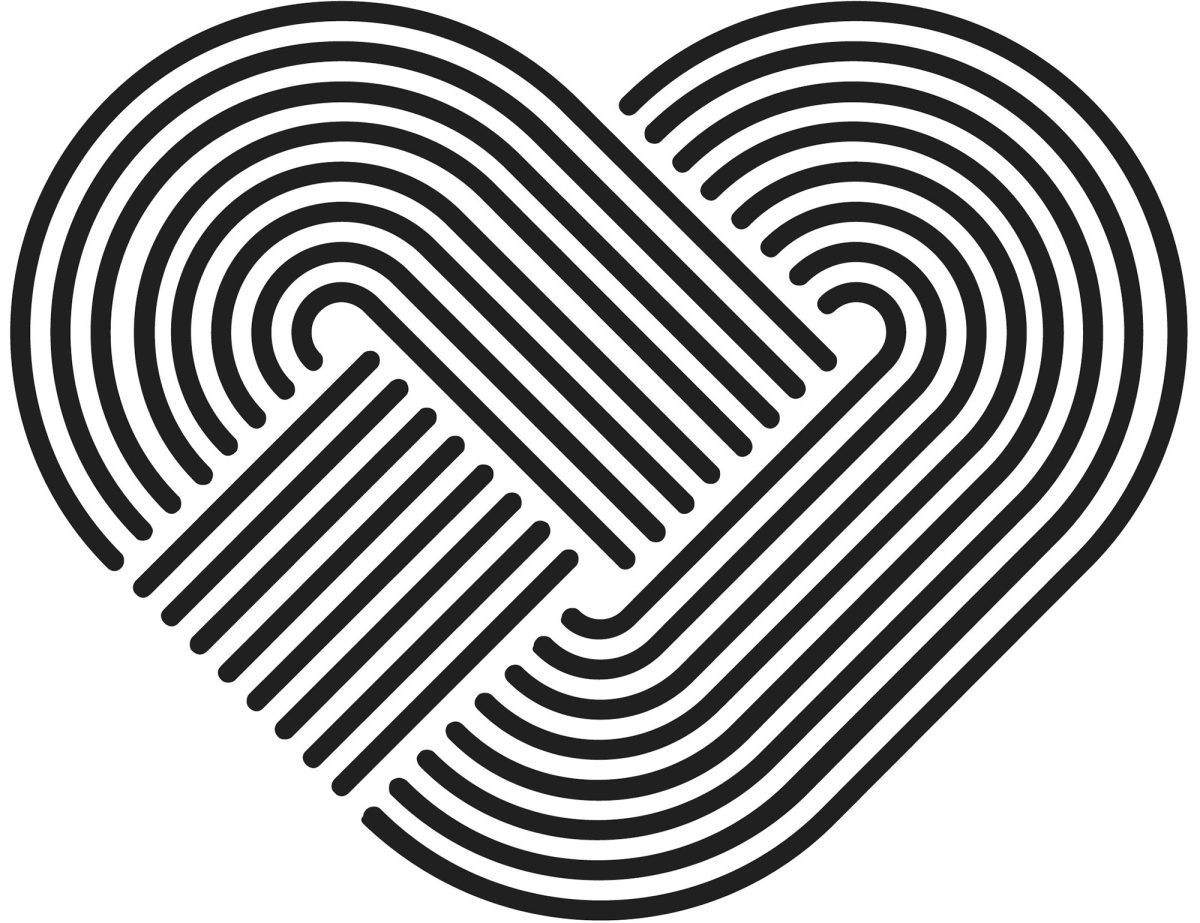
## Dry transfer lettering: Freedom and restriction Coming after movable type and photo-type, dry transfer lettering represents a halfway point within the historical evolution of typefaces, standing between photocomposition and digital typefaces, the final analog link connecting two apparently disparate universes since it allowed both professionals and enthusiasts, for the first time, to make use of these curious stencils that ended up having a huge impact in the ever changing industry of design and the graphic arts.
The leap from one format to another has occurred with questionable rigor and many of the families that existed as dry transfer alphabet sheets suffered various losses, especially if one takes into account what had been accomplished in more than 500 years of tradition. Others were unfortunate or fortunate enough to not be part of a broader group of typographical families that comprised the existing catalogues. However, a large number of type families designed for this short-lived means of reproduction were also developed, and they were based on types of letterforms that either continued to evolve towards the digital era or remained awaiting to be the last technology to resurface from transfer sheets to Bezier curves.
At the time the format freed typefaces from some of the restrictions that limited them and this led to unexpected uses of typographical form and space, which was manifested in the use they were given while their surge lasted. Even when formally a mechanism existed that allowed a correct spacing by means of an individual letter registry system named Spacematic, additionally, and made possible via a thorough study of the alphabetic usage frequency, an optimum use of the characters of the alphabet, numbers and punctuation was guaranteed with minimum waste.
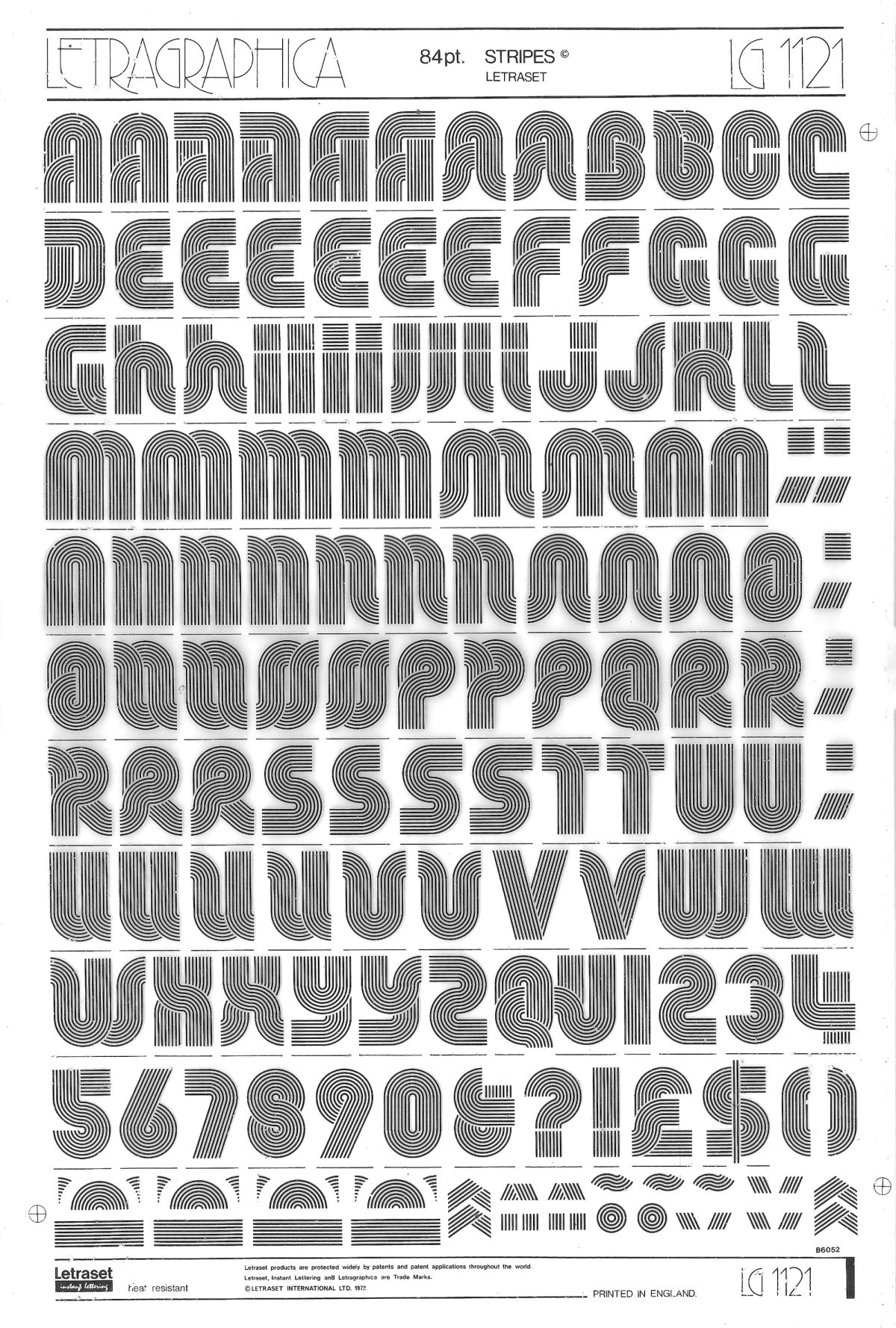
Stripes
Within this nearly forgotten ensemble rests a face with great potential that hasn’t had a worthy revival so far. I’m referring to Stripes, of the currently extinct Letraset company, consisting of a geometric, multilinear letter style which has eight lines for each stroke and whose peculiarity and innovation lies in the fact that it has alternate versions for most alphabetic characters, allowing them to join with each other, creating a continuous succession of shared parts along the words one wants to give shape to. This face was included in a special collection of fonts for titlings named Letragraphica, many of which were developed for this use and some that were selected via an international contest to become a part of the next catalogue.
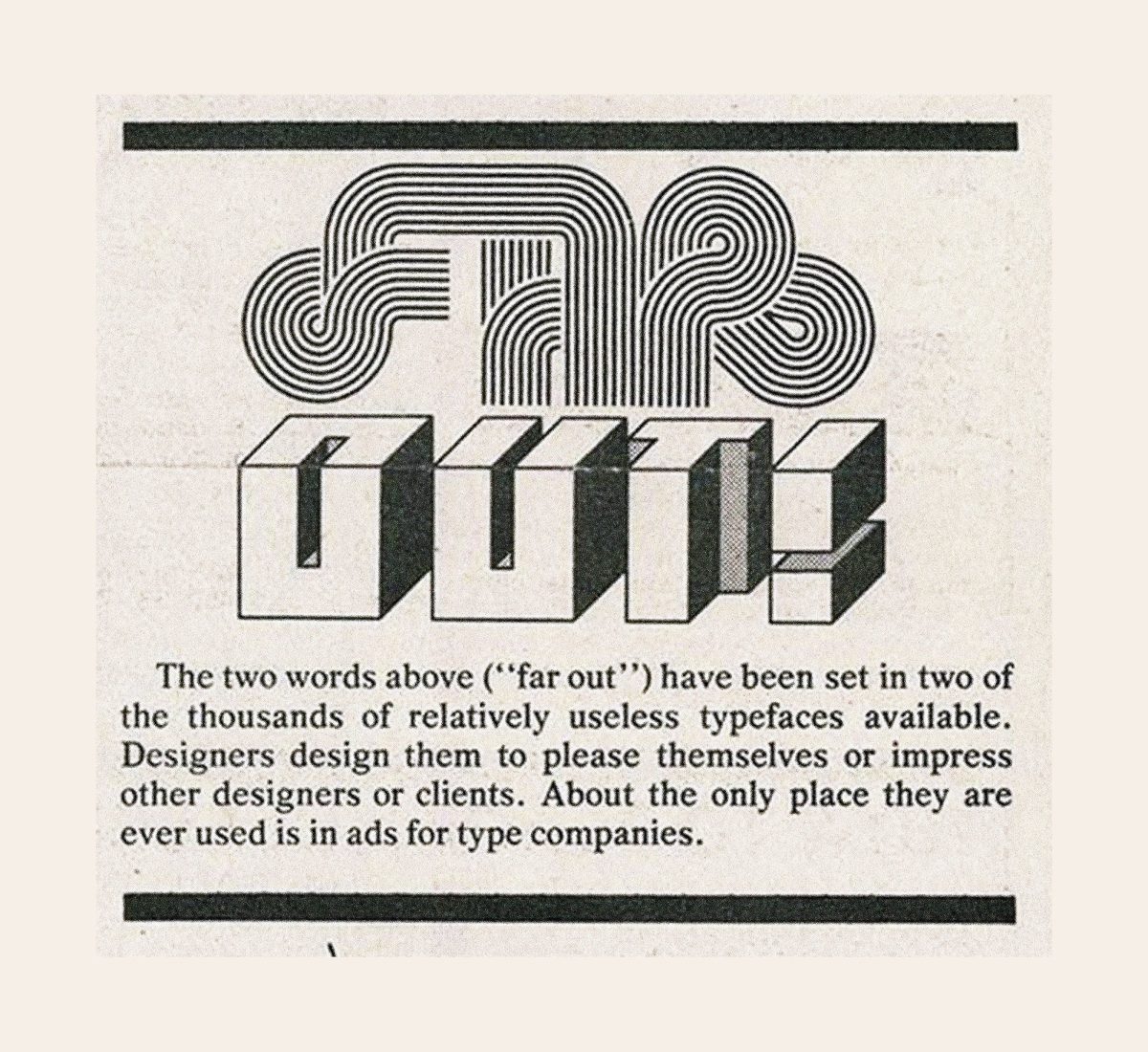
Due to its method of use, once a letter was transferred it couldn’t be used for another composition, which was one of the main disadvantages of the dry transfer lettering technology. Therefore when a title required additional characters, the only possible solution was to once again acquire the same sheet, which would hardly suffice for a single use and almost every time there were characters left unused, added to the fact that to set a title with Stripes an alphabetic variant that had already been used was needed, further complicating its use for more complex titles. However many skilled users of the field would resort to clippings and patches taken from other characters to form words and come up with clever ways to connect letters.
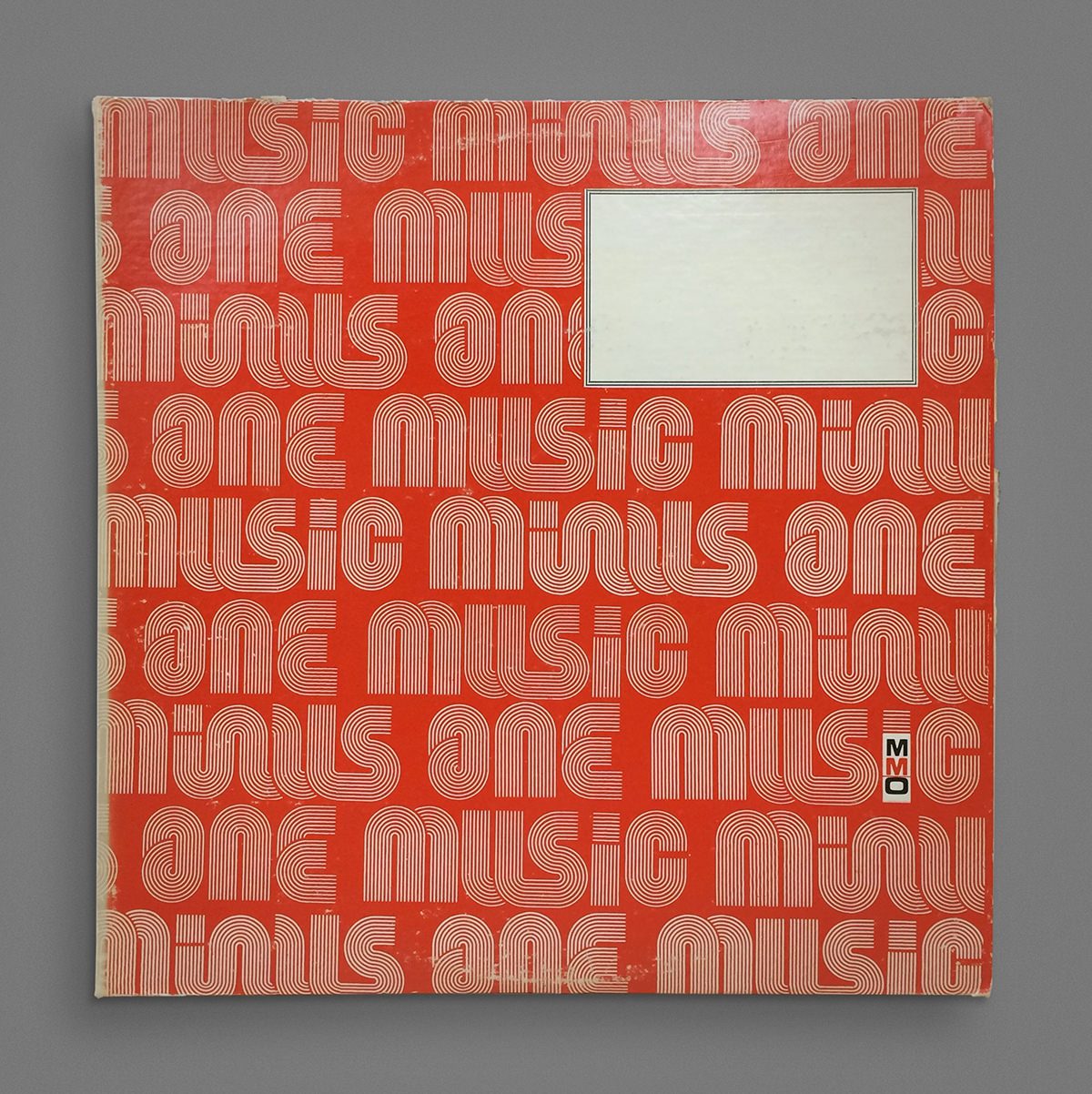
Another characteristic of this typeface that remained little explored by users was, when used for straightforward setting, the ability to alter titles generated with this system by excluding some of the lines. Also, in the case of professionals creating mechanic originals for reproduction, lines could be used independently to incorporate color in designs that pushed the boundary between typography and lettering. In some of the few cases available today the continuity of lines can still be observed in the spaces between words, and even more, if the alignment of the parts of letters would allow it, a vertical union in logotypes and visually impactful phrases.
Octothorpe
Re-emerging with the name of ‘Octothorpe’ and as a part of the process of reanimation one of the tasks performed consisted of adding characters that would complete a broader set fit for today’s standards, made possible thanks to the economy of the digital format. In order to do this, catalog specimens and in-use samples were consulted, as well as the original sheets.
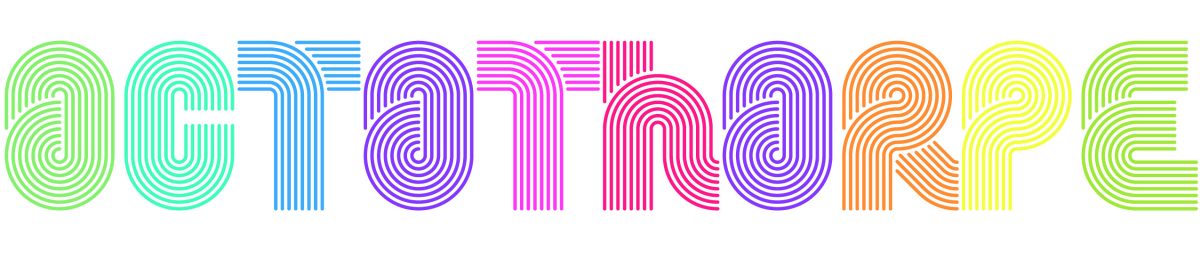
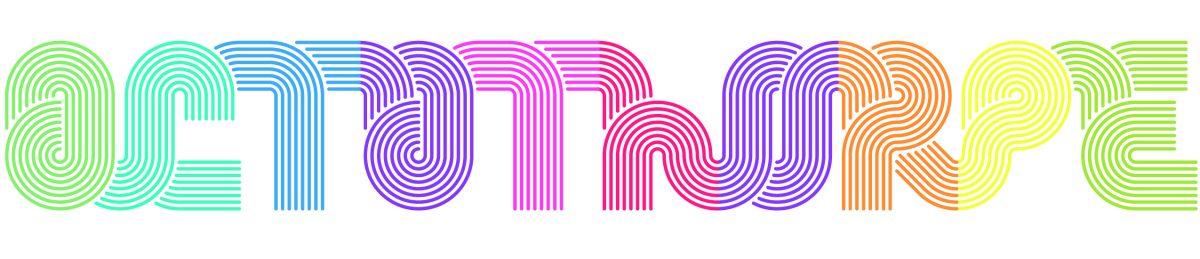
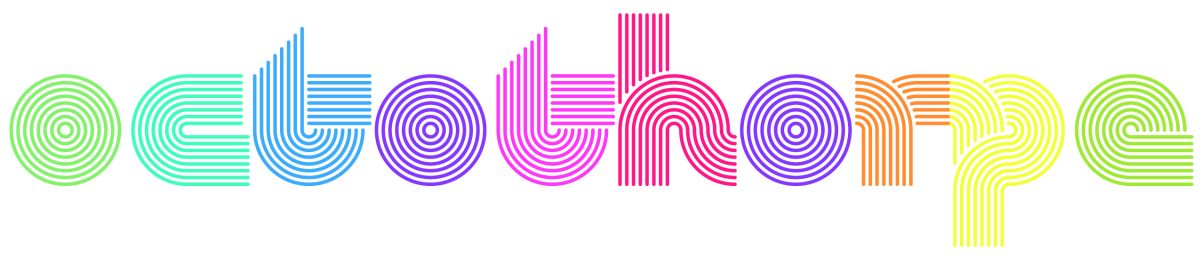
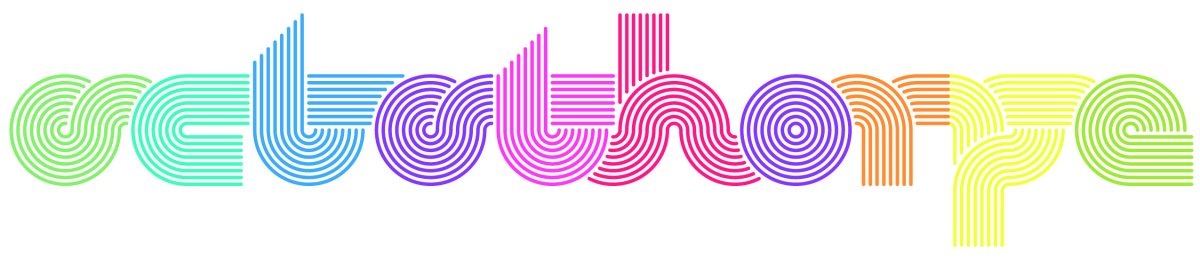
As if it were a font equipped with tentacles, the letters of Octothorpe can be linked or not to suit the user’s desire, generating a continuity of a high graphic impact.
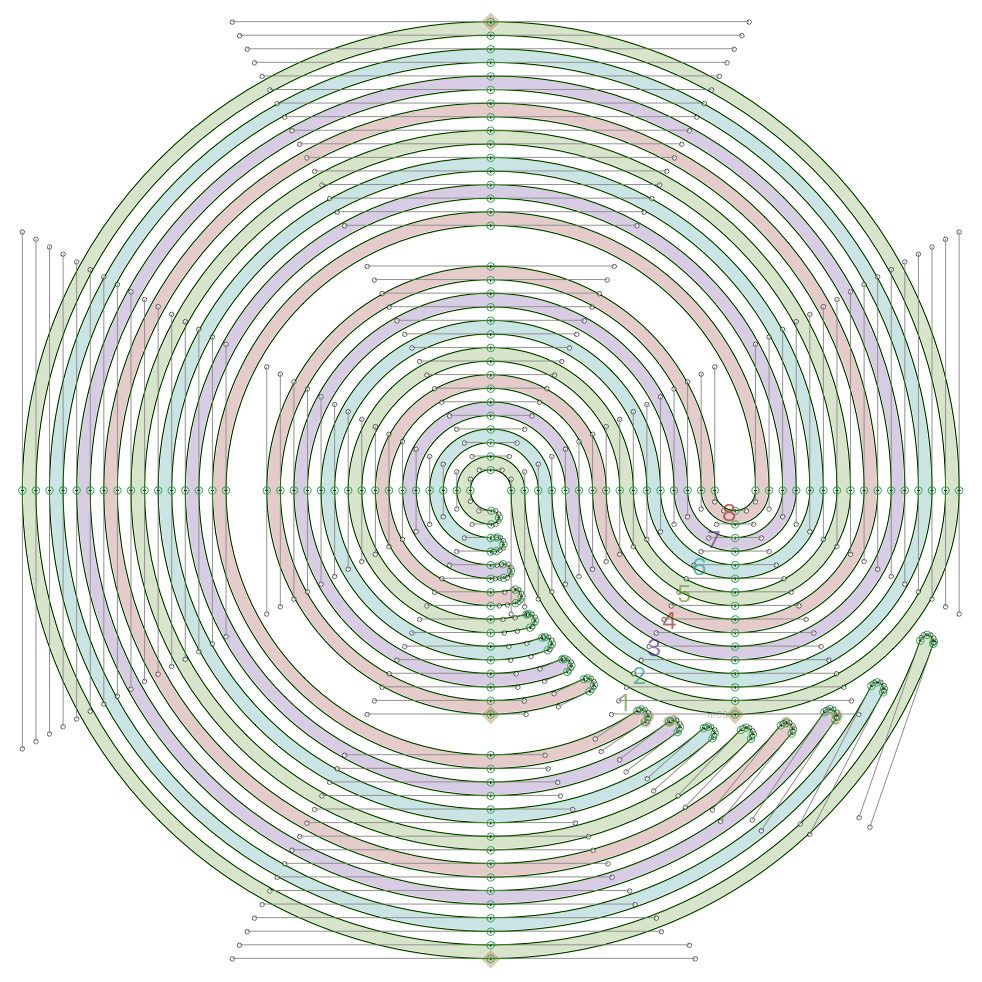
The process involved the meticulous task of manually drawing Bezier curves. Luckily some algorithms and scripts that allow you to control the drawing quality were very helpful.
Take your pick: every possible cross-link of lines for the dollar or peso sign.
Many of the designs available for the so-called instant lettering have continued into digital typography, and in some cases remained faithful to the original. Curiously enough House Industries’ sister company Photo-Lettering operated until recent years with its logo-words (and phrases) business model, under which the user received not a font but the solicited text composed in the selected style, paying for the extension of it in a transaction that echoes that of transfer lettering.
Nowadays digital technology invites us to explore other options such as animation via the variable font format, so once again we see new possibilities arising with each new method of reproduction. We must ask ourselves what other ways of expression can be found for typefaces from the past or even what is in store for the digital format once new tools are made available to continue and expand the variety of ways in which typography manifests before our eyes.
Jorge Iván Moreno Majul is a font developer based in Veracruz, México. His type work has been selected by the Tipos Latinos international biennale. He has been the main font developer at PampaType for many years, and he has collaborated in the design and production of custom typefaces with a variety of independent foundries such as LetraCase, Branding with Type, Research Studios Barcelona, and several font designers from the Latin American scene. He was part of FontStage, a group of type designers who delivered custom projects for Google Fonts. He also gives lectures and workshops on digital type, font production, coding and the like. However what he enjoys most is putting letterforms’ nodes where they belong.